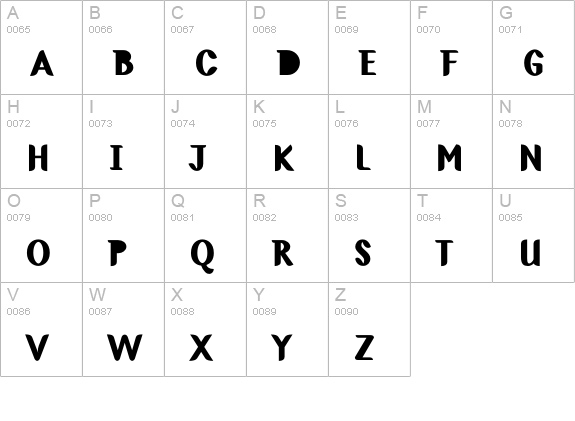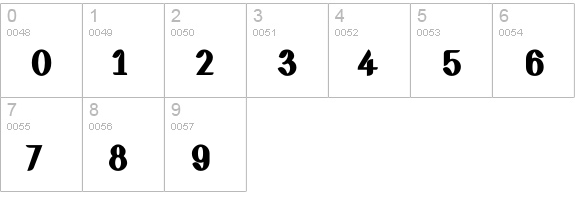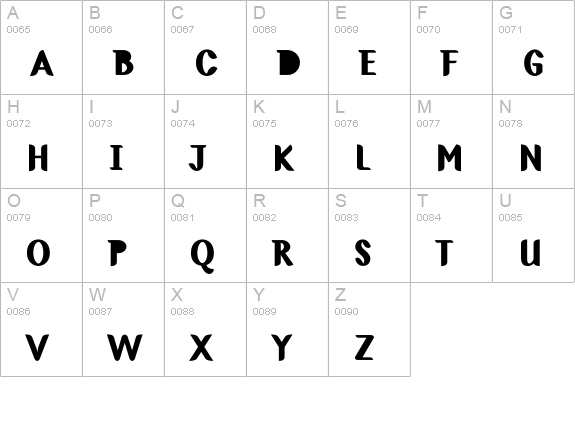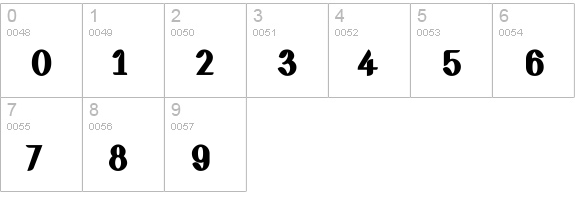
GreenTerrorExtraBlack Font Details
GreenTerrorExtraBlack is a bold and impactful font that exudes power and strength. Its sharp edges and bold lines make it perfect for making a statement in your designs. This font is versatile and can be used for a variety of projects, from branding to posters to web design. The best part is that GreenTerrorExtraBlack is completely free to download at FontsMarket.com. You can easily add this eye-catching font to your collection without having to worry about any costs. Don't miss out on this opportunity to enhance your designs with this striking font. Download GreenTerrorExtraBlack today and take your projects to the next level.